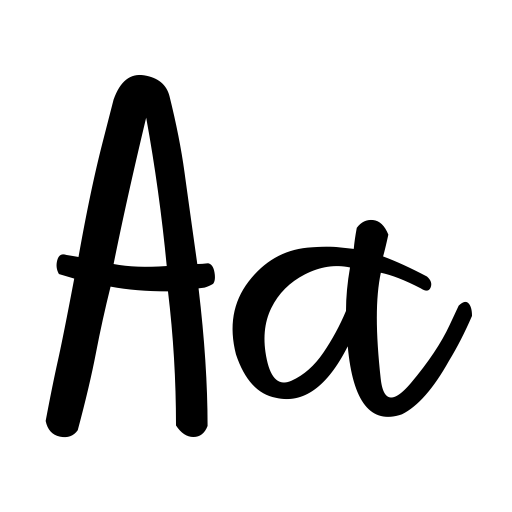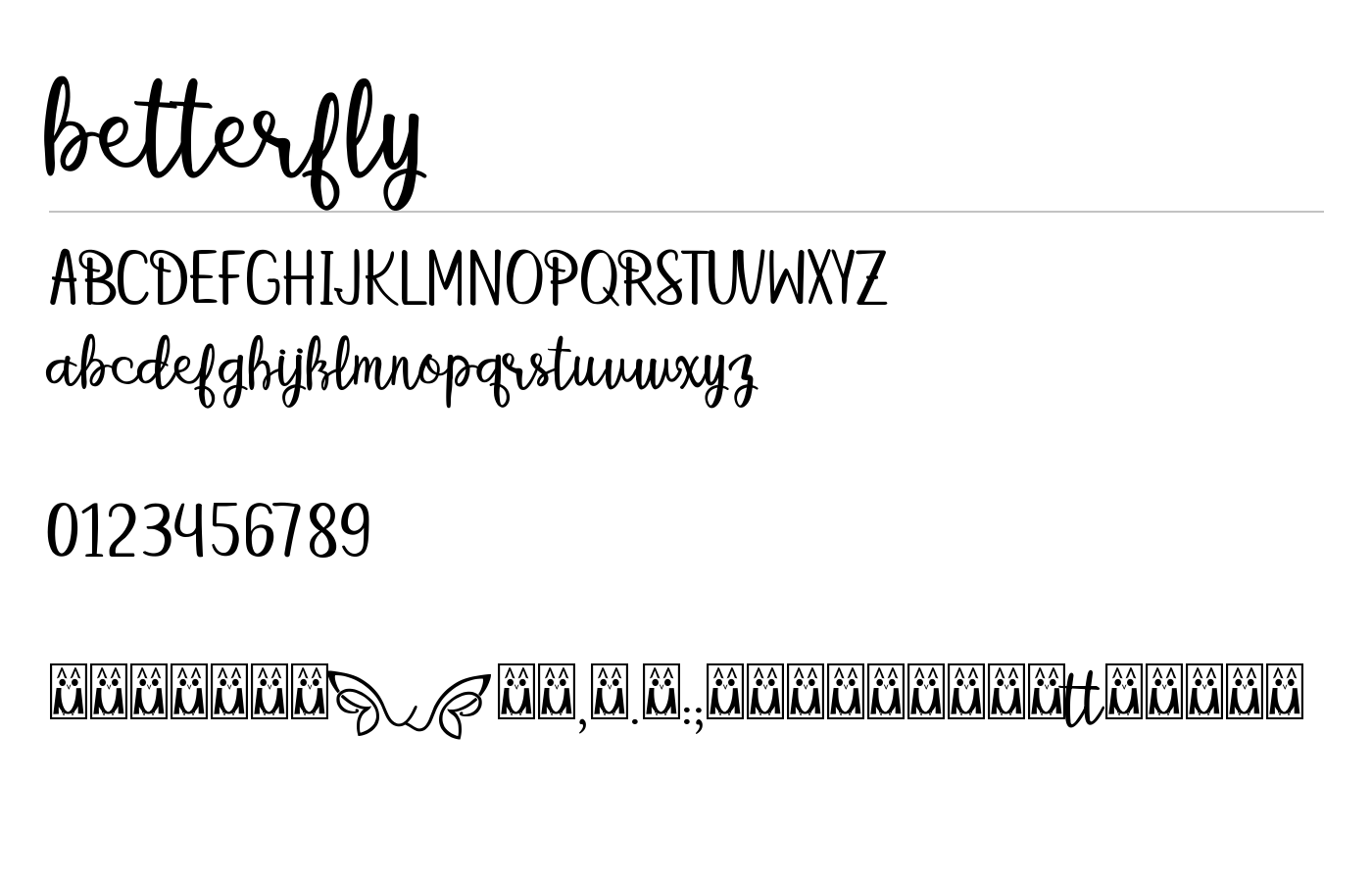
Betterfly is a playful and elegant handwritten script font combined with a quirky uppercase set that features tall, narrow letterforms and smooth curves. Its casual, friendly style makes it a great choice for creative projects, invitations, logos, and branding that seek a warm, approachable personality. The font’s unique character shapes and moderate contrast add charm and individuality, perfect for adding a personal touch to designs.
betterfly Font
About betterfly Font